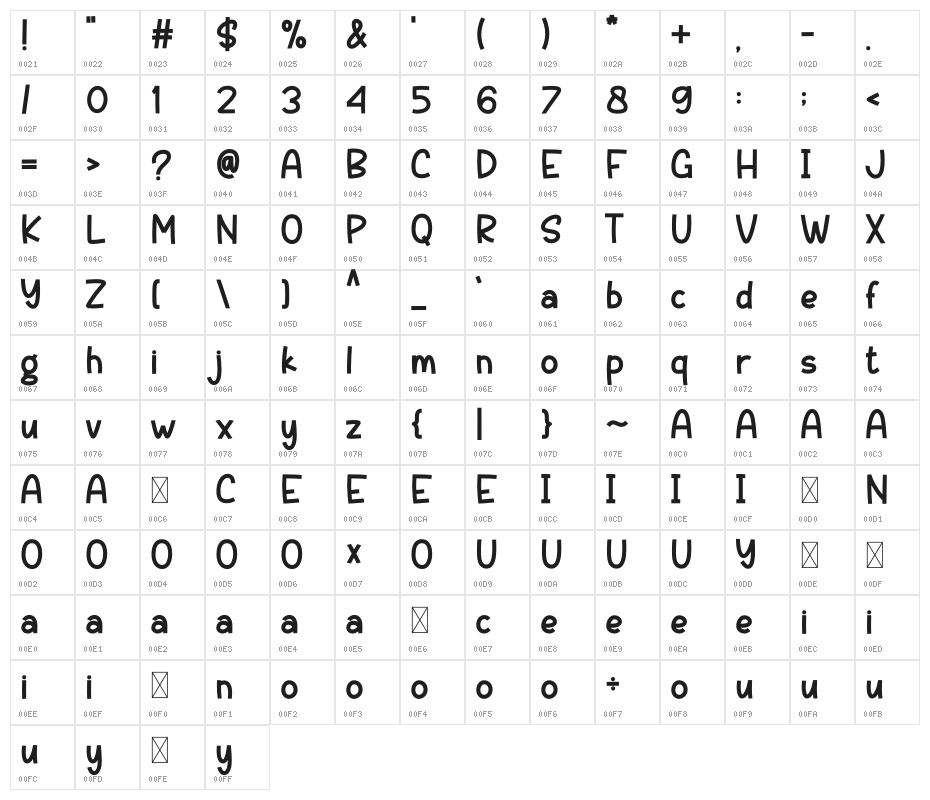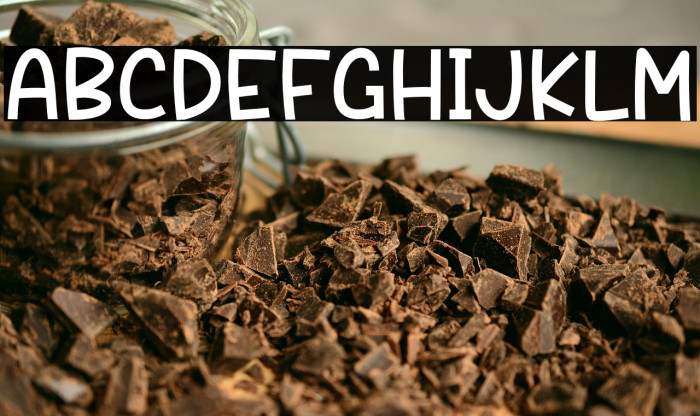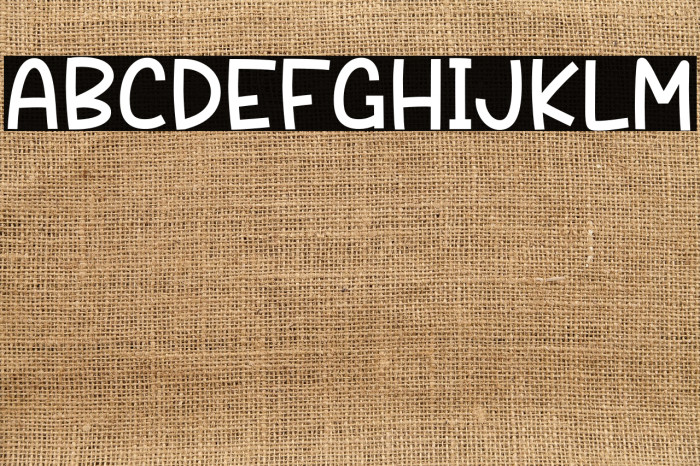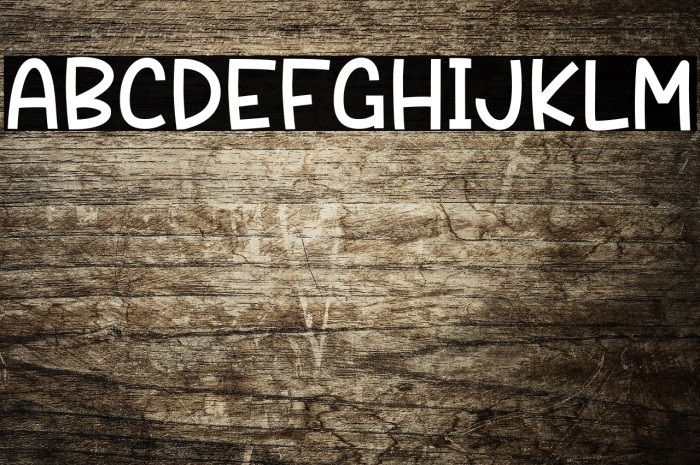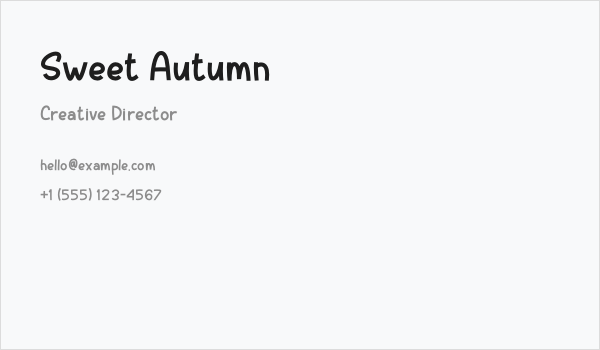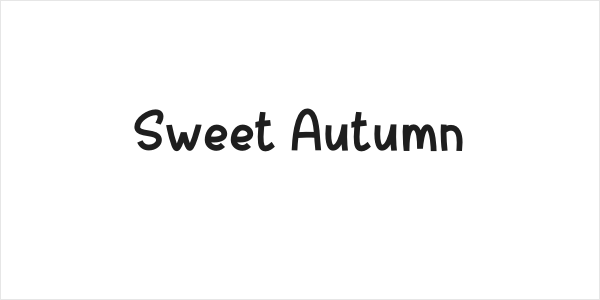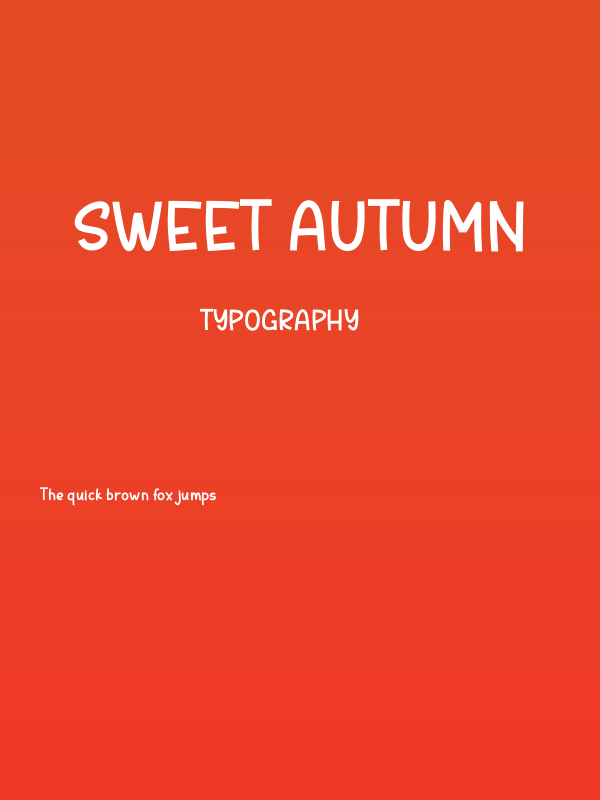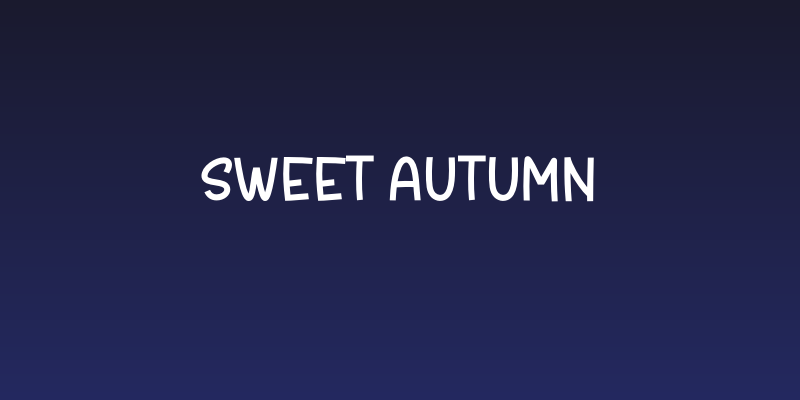
Sweet Autumn Font
Sweet Autumn Description
This playful and whimsical font features a hand-drawn style with a casual, friendly appearance. The letters are bold and slightly irregular, giving them a charming, informal look. The uppercase and lowercase letters are well-balanced, with rounded edges and a consistent stroke width that adds to the font's approachable feel. The numerals and special characters maintain the same playful aesthetic, making this font versatile for various creative projects. Its unique style is perfect for capturing attention while maintaining readability.
| Proposed Projects | Ideal for children's books, greeting cards, playful branding, and social media graphics. |